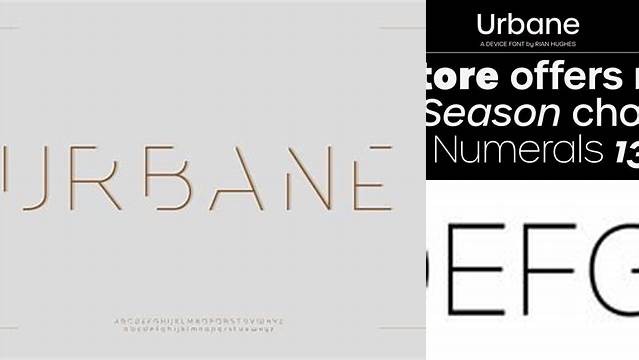
Urbane Thin Font: Free Download And Usage Guide
Introduction to Urbane Thin Font
Hey guys! Let's dive into the world of fonts, specifically the Urbane Thin font. If you're on the hunt for a font that exudes modernity, simplicity, and a touch of elegance, then Urbane Thin might just be your perfect match. This font family, known for its clean lines and minimalist aesthetic, has become a favorite among designers and creatives alike. Whether you're working on a sleek website design, a sophisticated branding project, or eye-catching marketing materials, the Urbane Thin font can add that extra layer of polish and professionalism.
The beauty of the Urbane Thin font lies in its versatility. Its slender characters and balanced proportions make it highly legible across various media, from digital screens to printed materials. This adaptability is crucial in today's design landscape, where your work needs to shine everywhere. Think about it – a font that looks fantastic on a billboard might not work as well on a mobile app. Urbane Thin, however, manages to maintain its clarity and style regardless of the platform. This makes it an invaluable asset in your design toolkit. Imagine the possibilities! From creating stunning logos and business cards to crafting engaging social media posts and website headers, Urbane Thin can elevate your projects and help you communicate your message with style. Plus, the subtle sophistication it brings can make your designs stand out in a crowded market. In the following sections, we’ll explore where you can find this gem for free and how to make the most of it in your creative endeavors. So, let's get started and unlock the potential of Urbane Thin!
Why Choose Urbane Thin?
Okay, so why should you specifically choose Urbane Thin over the countless other fonts out there? Great question! The answer lies in its unique blend of style and functionality. Urbane Thin isn't just another pretty typeface; it’s a thoughtfully designed font that brings a sense of modern sophistication to any project. Its clean, minimalist lines make it incredibly versatile, fitting seamlessly into a wide array of design contexts. Whether you're crafting a sleek, corporate identity or a trendy, editorial layout, Urbane Thin can deliver the visual impact you're aiming for.
One of the key reasons designers love Urbane Thin is its legibility. The font’s slender strokes and balanced letterforms ensure that it remains readable even at small sizes. This is crucial for body text in websites, brochures, and other materials where clarity is paramount. Imagine trying to read a lengthy paragraph in a font that’s overly ornate or condensed – it’s a recipe for eye strain and frustration! Urbane Thin, on the other hand, prioritizes readability without sacrificing style. Its understated elegance allows your content to take center stage, while still adding a touch of visual interest.
Another significant advantage of Urbane Thin is its ability to pair well with other fonts. It plays nicely with both serif and sans-serif typefaces, giving you the flexibility to create dynamic and visually appealing designs. You could pair it with a classic serif like Garamond for a timeless, sophisticated look, or combine it with a bolder sans-serif like Montserrat for a modern, high-contrast effect. The possibilities are endless! This adaptability makes Urbane Thin a valuable tool for designers who want to create cohesive and harmonious typography systems. Plus, its minimalist nature ensures that it doesn't overpower other design elements, making it a reliable choice for a variety of projects. So, if you're looking for a font that's both stylish and practical, Urbane Thin is definitely worth considering. Its ability to enhance readability while adding a modern flair makes it a standout choice in the world of typography.
How to Use Urbane Thin in Your Projects
Alright, you've got Urbane Thin downloaded and ready to go – fantastic! Now, let's talk about how to actually use this sleek font in your design projects. The key to making the most of any font is understanding its strengths and using it in contexts where it can truly shine. Urbane Thin, with its minimalist aesthetic and clean lines, is incredibly versatile, but there are certain applications where it really excels.
One of the most effective ways to use Urbane Thin is in headlines and titles. Its elegant, understated style can add a touch of sophistication to your headers without overwhelming the rest of your design. Imagine a website with a bold, striking hero image and a headline set in Urbane Thin – the font's simplicity allows the image to take center stage while still maintaining a sense of visual hierarchy. However, because Urbane Thin is, well, thin, it’s best used for larger text sizes. Using it for small body text can make it difficult to read, especially on screens. So, if you’re planning to use Urbane Thin for body copy, consider opting for a slightly bolder weight or a similar font that’s designed for longer passages.